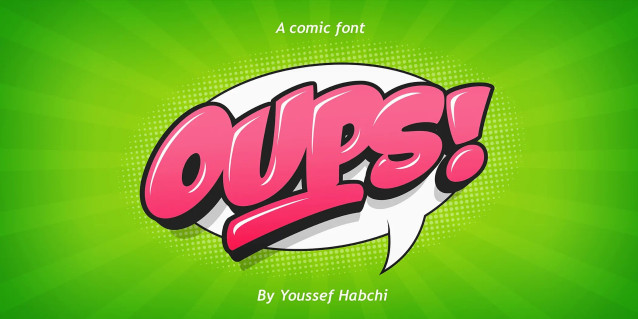
Oups Display Font
Oups Display Font is a lively comic-style display font full of bounce, humor, and personality, perfect for comic book titles, cartoon branding, speech bubbles, or cheeky headlines. Oups font is available in 3 styles : Regular, Clean and Outline.
Use – multiple times to create underlines (requires having enabled opentype features).